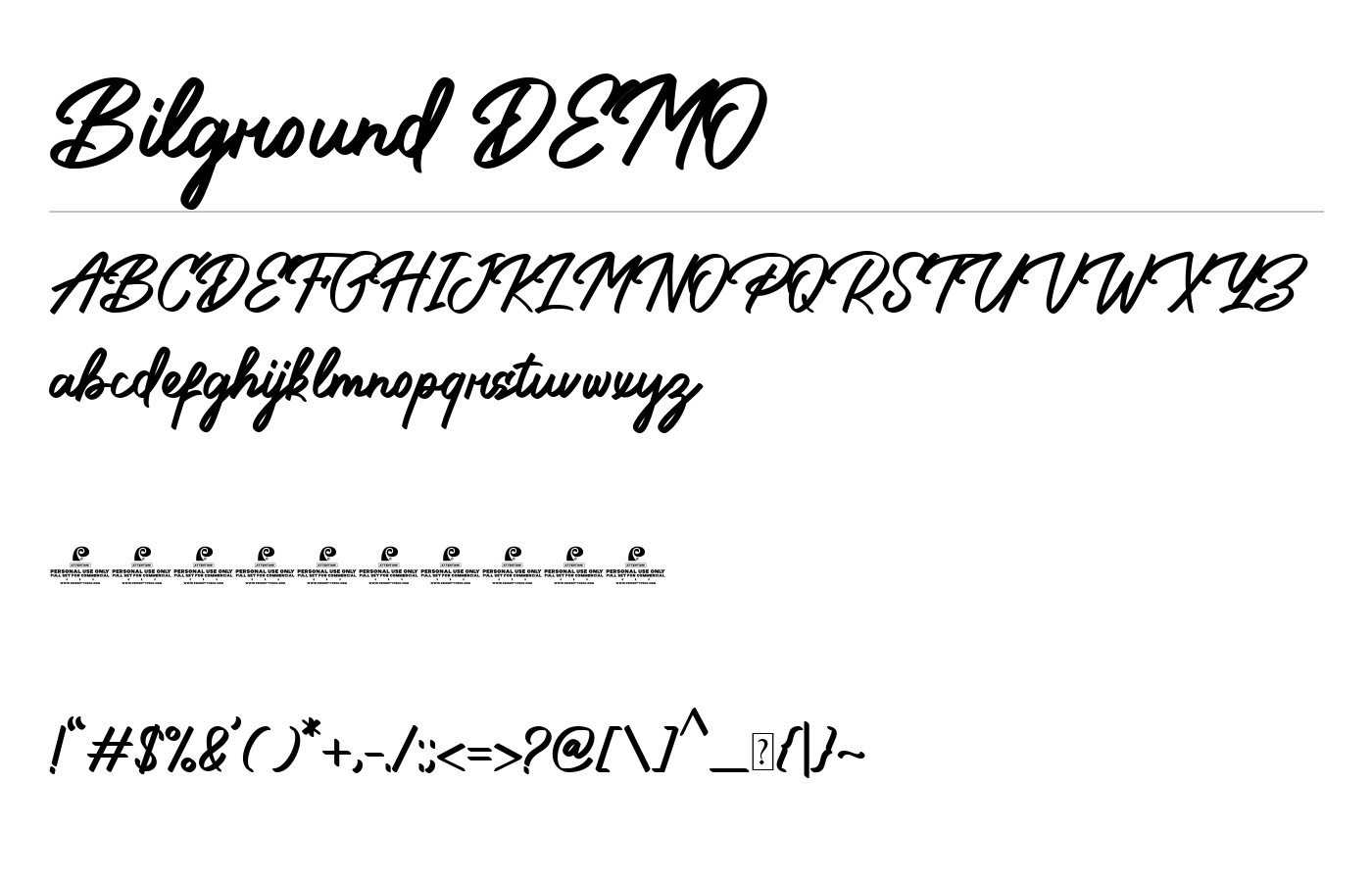
Bilground DEMO is a lively and casual script font featuring smooth, flowing strokes with moderate weight and moderate contrast. Its cursive style evokes a friendly and personal feel, making it ideal for signage, invitations, and branding that call for a warm, approachable vibe. This font works especially well in creative projects needing a handwritten touch without sacrificing legibility.
Bilground DEMO Font
About Bilground DEMO Font